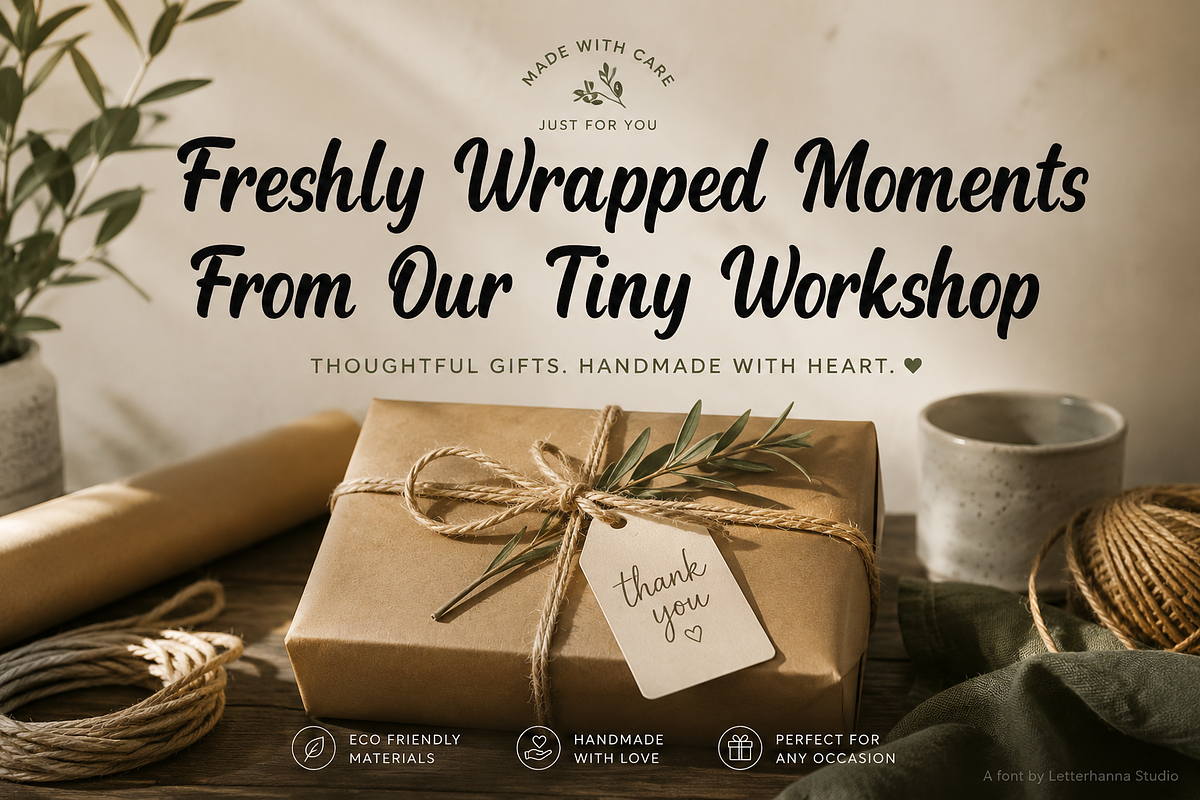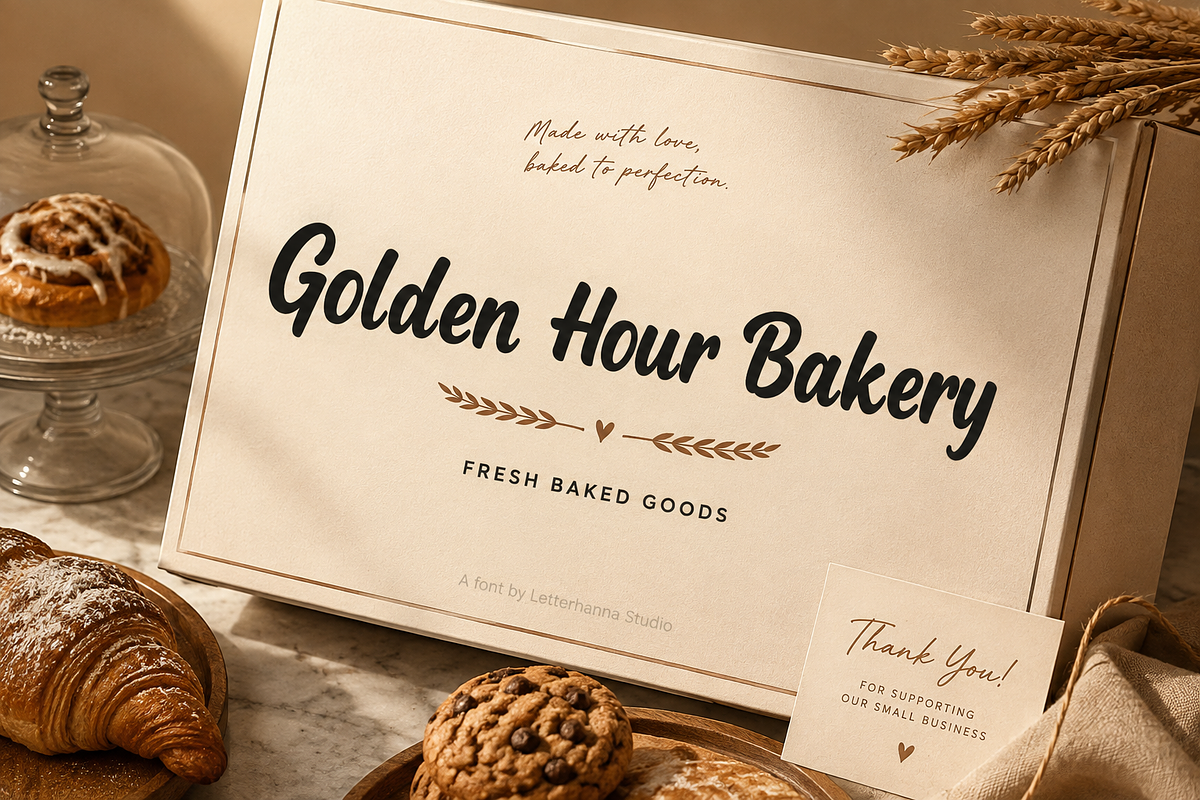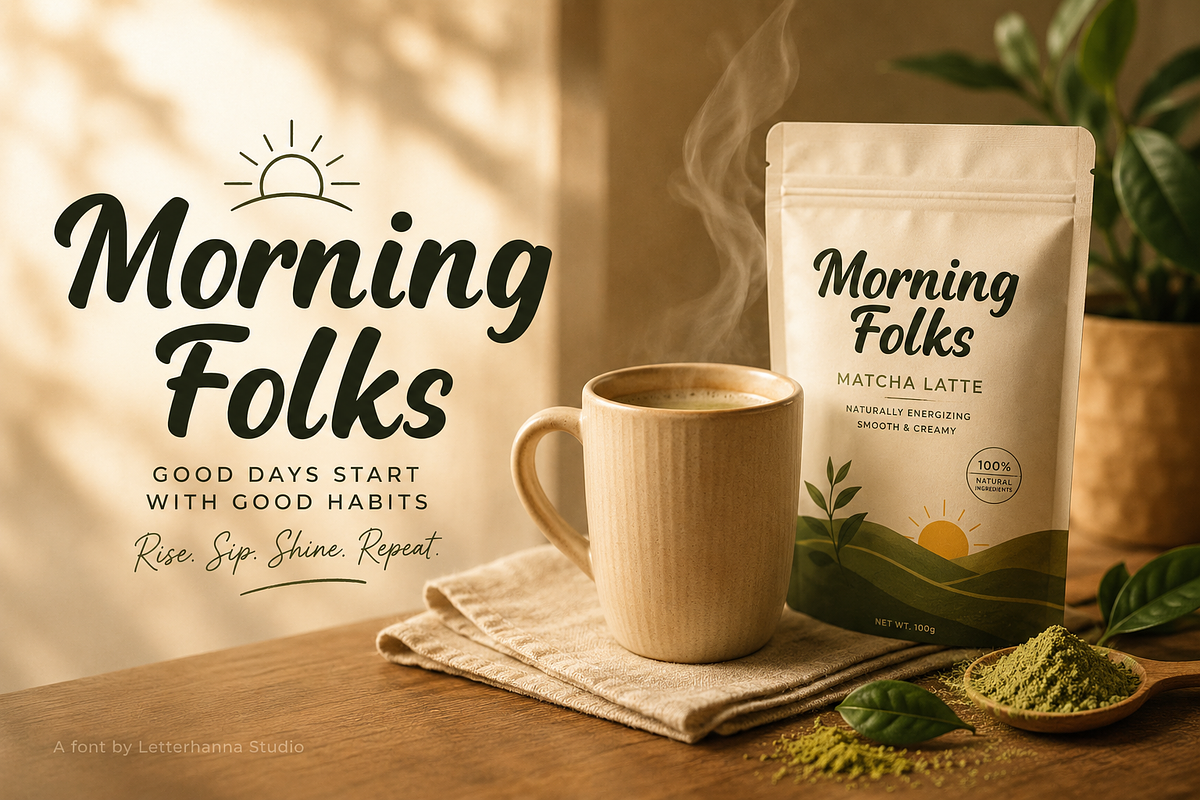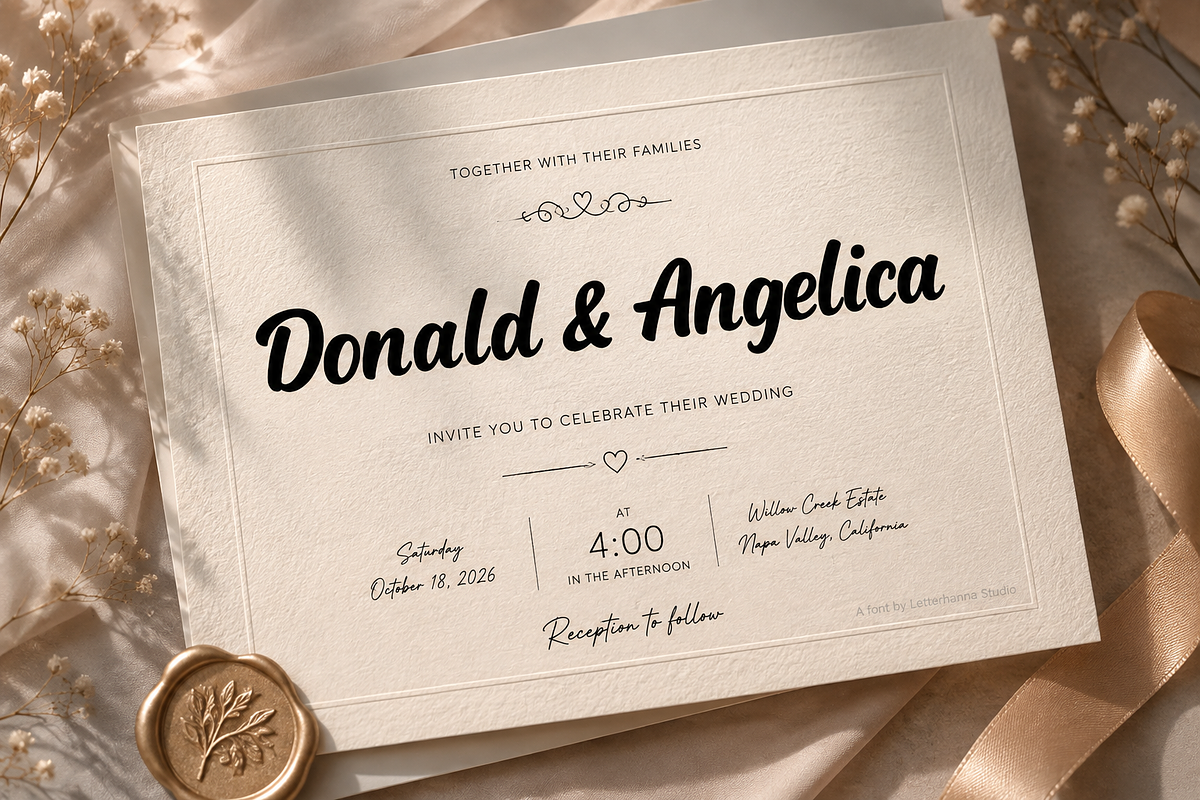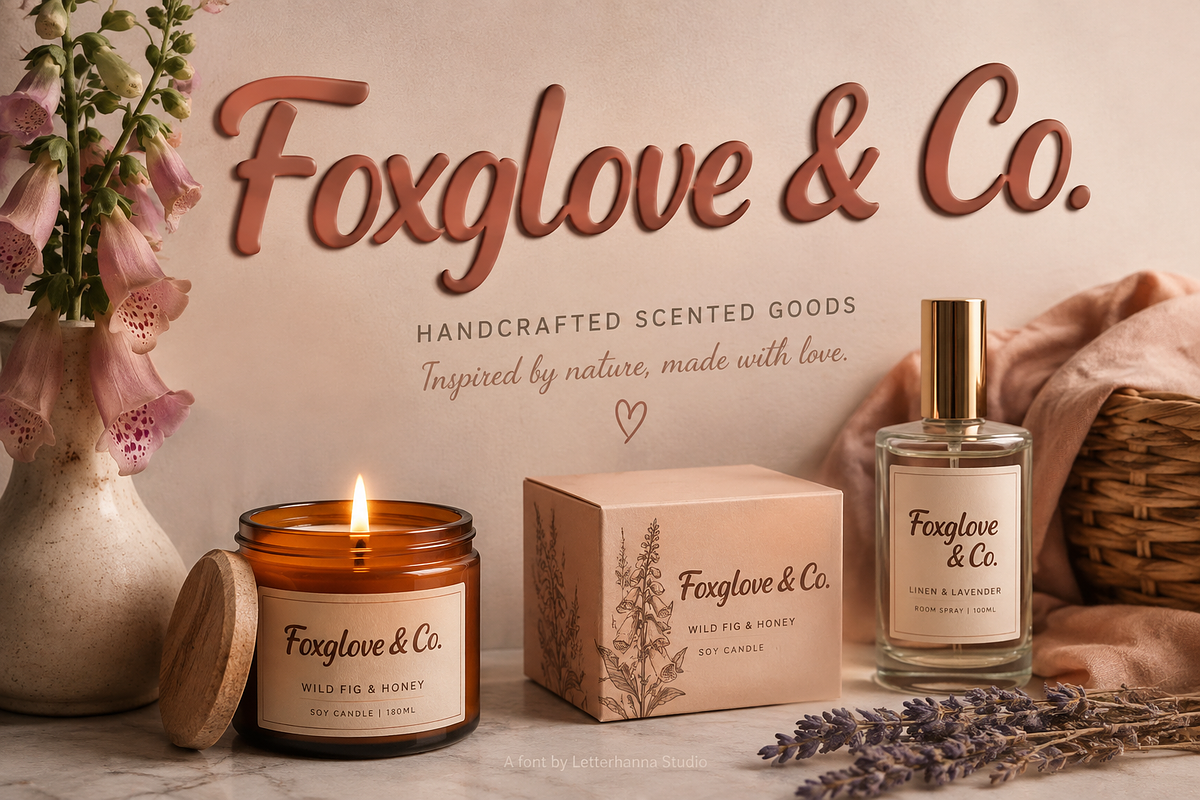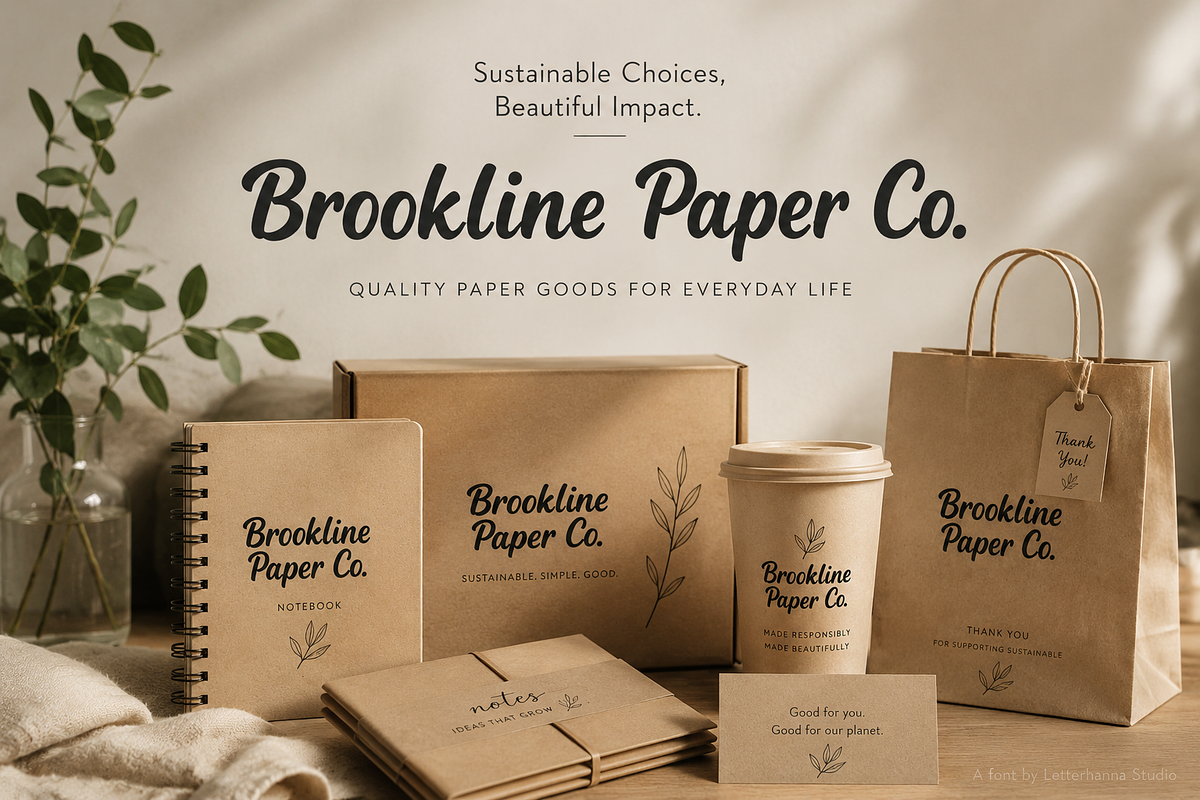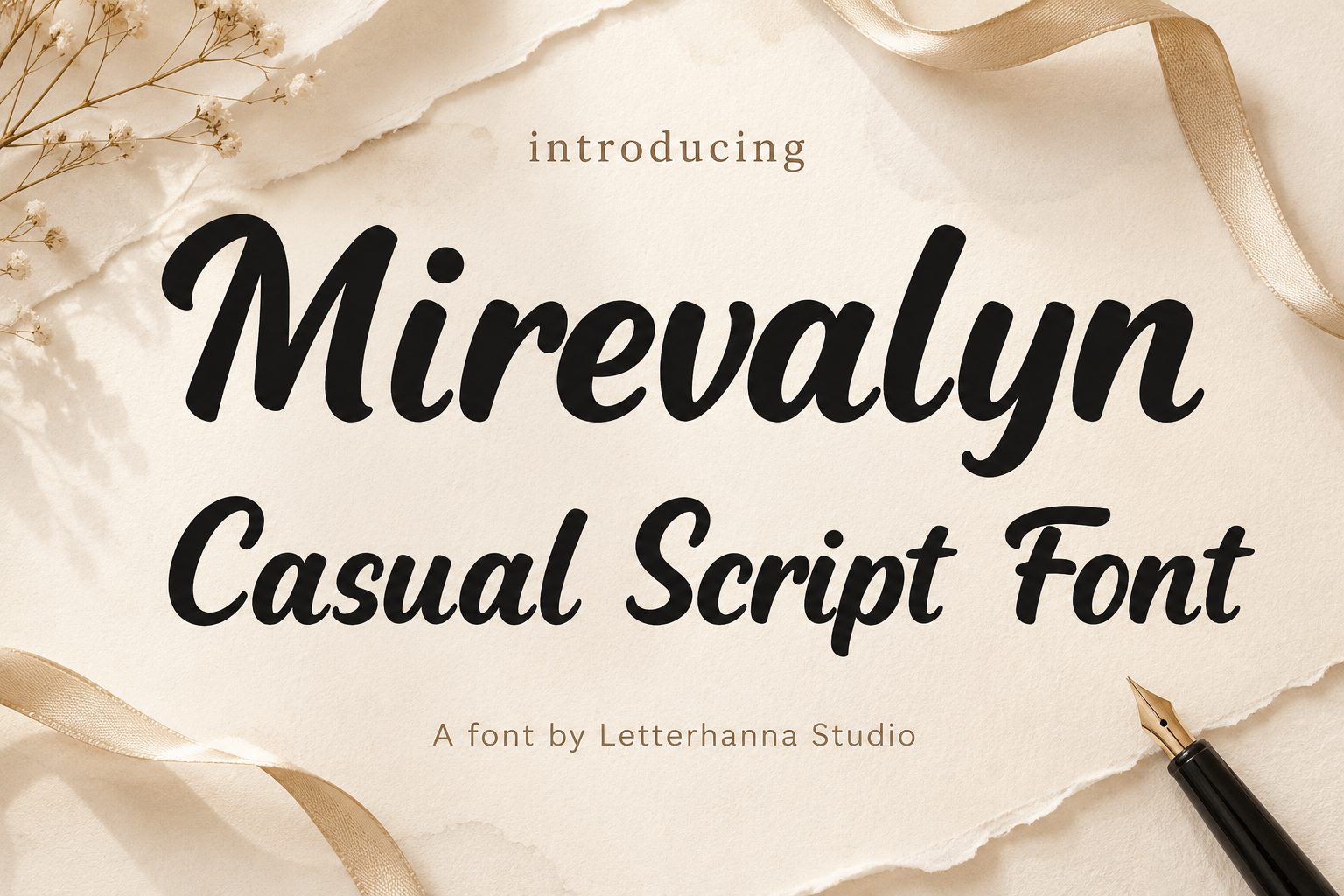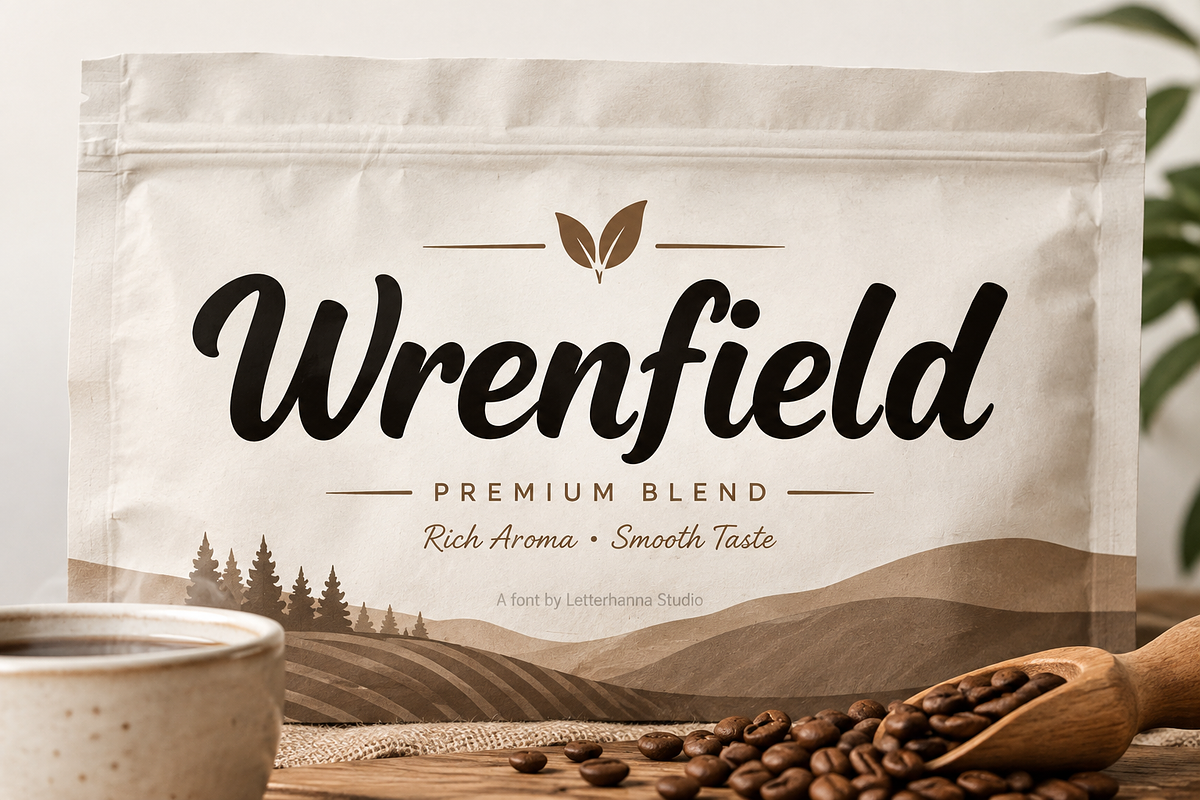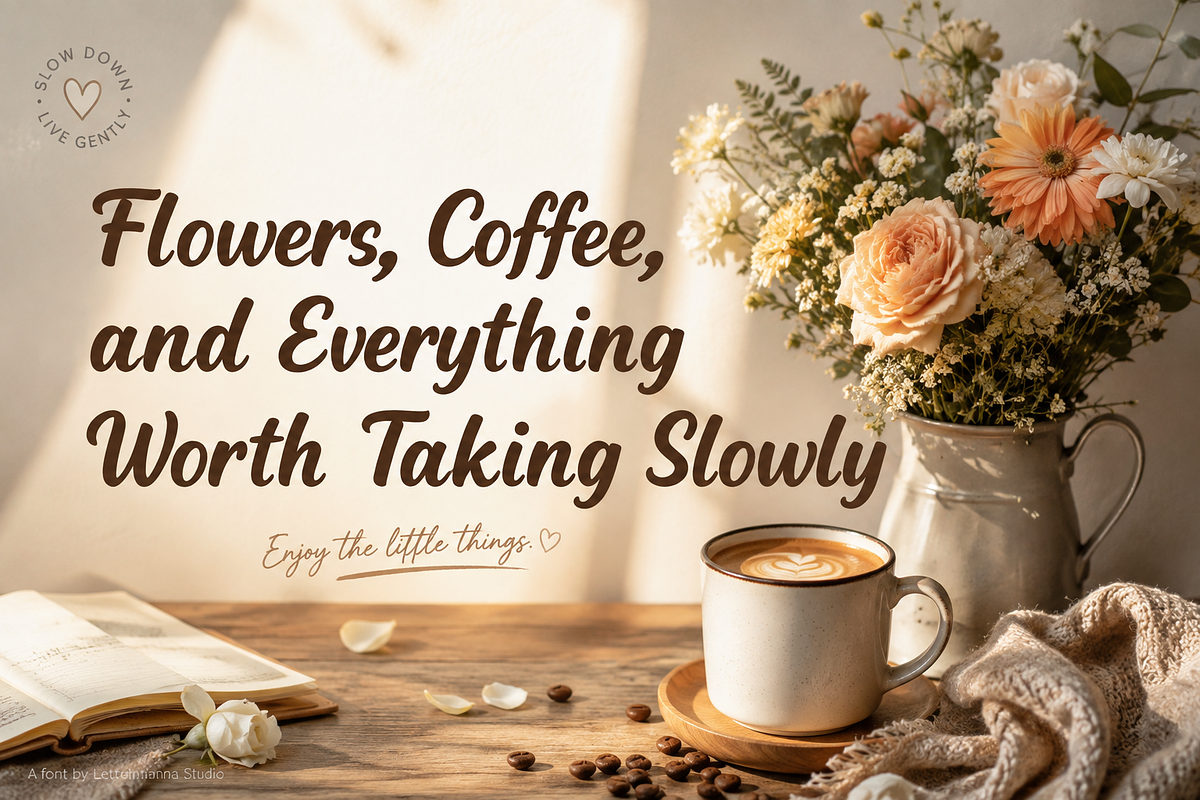
Mirevalyn: A Casual Script Font
Mirevalyn: A Casual Script Font for Modern Designs
Some designs look polished but still feel flat. Mirevalyn brings the missing spark with a flowing, expressive style that makes words feel more lively and inviting.
Mirevalyn is a Casual Script Font with smooth connections, bold strokes, and a relaxed handwritten rhythm. Its flowing letterforms create movement while maintaining a clean and stylish appearance.
The result is a Modern Script that feels effortless rather than overly formal. It works beautifully when a design needs warmth, charm, and a touch of spontaneity.
A Script With a Relaxed Vibe
Mirevalyn fits naturally into logos, product packaging, café menus, apparel, social media graphics, stationery, labels, and creative branding. Its confident strokes help short words and headlines stand out without requiring heavy decoration.
It can also bring a fresh direction to Wedding Script designs. Invitations, welcome signs, menus, thank-you cards, and event stationery can gain a romantic mood without looking excessively traditional.
When Typography Changes Everything
Imagine a simple label using an ordinary typeface. It communicates the information, but nothing really happens.
Now give the main words a flowing handwritten treatment.
Suddenly, the same message feels warmer, more expressive, and more memorable.
That is the surprising power of script typography: the words remain unchanged, but their visual personality transforms.
Designed for Creative Projects
Pair Mirevalyn with clean typography for contrast, or let its flowing strokes become the main visual attraction. It works especially well with spacious layouts, soft textures, editorial compositions, packaging, invitations, and lifestyle imagery.
If your design feels too rigid or predictable, Mirevalyn can introduce the movement it needs.
Give your next project a fresh handwritten touch with Mirevalyn.